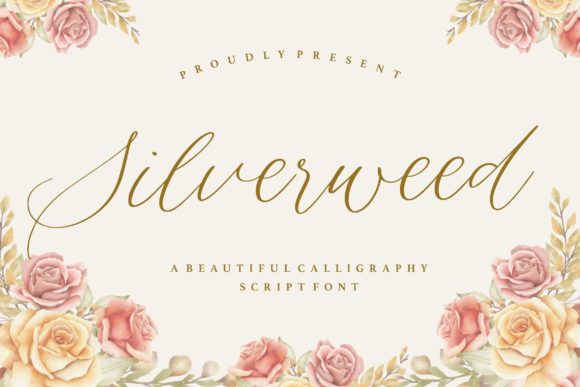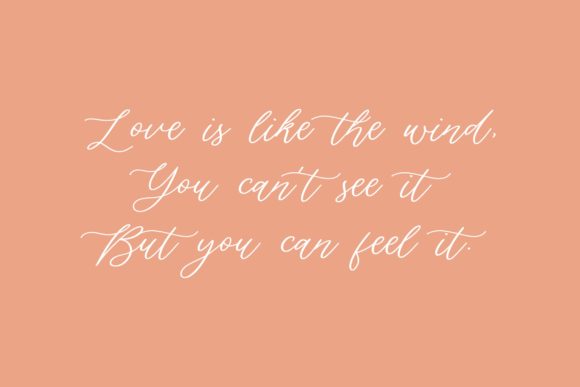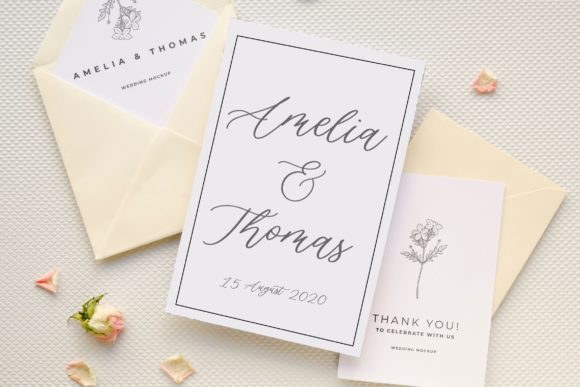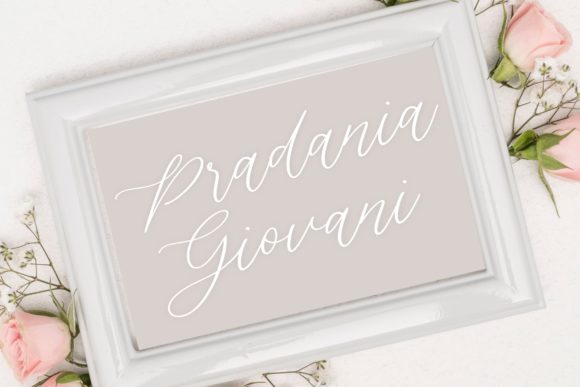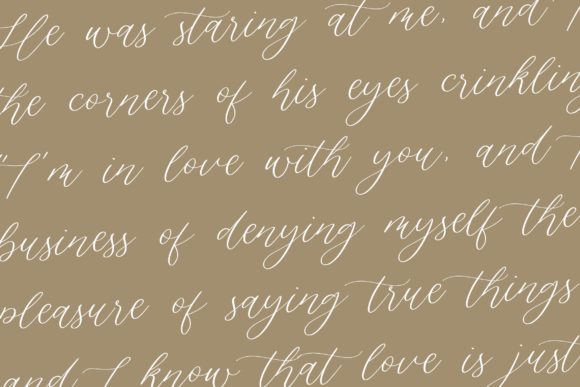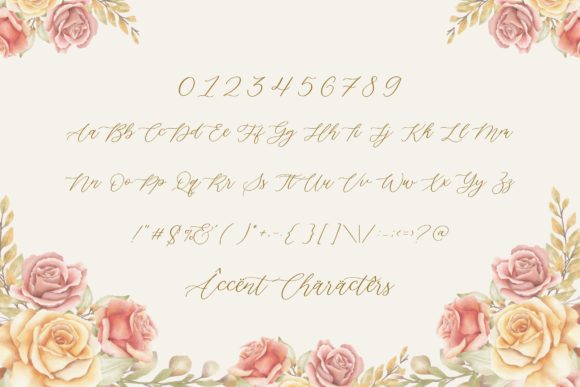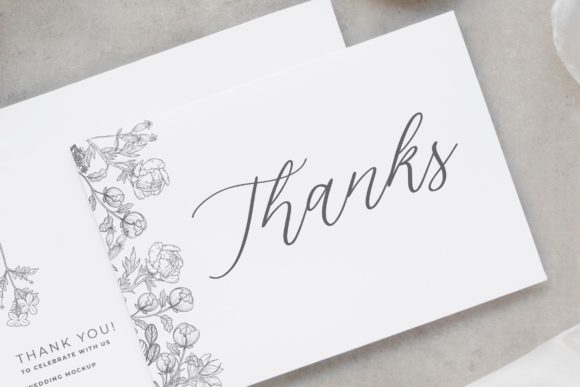
Silverweed Font
About Silverweed Font
Silverweed sounds like a beautiful and versatile handwritten font that can bring a touch of elegance and grace to various design projects. With its delicate and flowing style, it can enhance the beauty of your creations and add a unique charm. Here are some creative ideas on how to use Silverweed font to make your designs come alive:
1. Wedding Invitations: Design romantic and sophisticated wedding invitations with Silverweed font, creating a sense of elegance and enchantment for the special day.
2. Quotes and Lettering Art: Create beautiful quote art and lettering pieces with inspiring messages written in Silverweed font, making them suitable for wall art or social media posts.
3. Logo Design: Use Silverweed font in logo designs for businesses that seek a refined and graceful identity, such as boutique shops, wedding planners, or luxury brands.
4. Book Covers: Incorporate Silverweed font into book covers, especially for genres like romance, poetry, or historical fiction, to evoke a sense of beauty and allure.
5. Stationery: Customize stationery items, such as letterheads, notecards, and envelopes, with Silverweed font to add an elegant and personal touch.
6. Branding Materials: Design branding materials, such as business cards, brochures, and packaging, using Silverweed font to create a cohesive and sophisticated brand image.
7. Social Media Graphics: Create stylish and eye-catching social media graphics using Silverweed font to enhance brand aesthetics and engage followers.
8. Beauty and Fashion Blog Headers: Use Silverweed font in blog headers for beauty and fashion blogs to create a chic and elegant look.
9. Product Labels: Customize product labels with Silverweed font, especially for handmade or artisanal goods, to give them a touch of craftsmanship and elegance.
10. Event Invitations: Design invitations for special events, such as galas, fundraisers, or formal gatherings, using Silverweed font for a sense of refinement and class.
11. Fine Art Prints: Create fine art prints with Silverweed font for galleries or online art shops, showcasing the beauty of calligraphy and hand lettering.
12. Elegant Menus: Design elegant and sophisticated menus for high-end restaurants or cafes using Silverweed font to elevate the dining experience.
13. Luxury Travel Brochures: Use Silverweed font in travel brochures or travel agency materials to evoke a sense of wanderlust and luxury.
14. Personal Logos: Create personal logos or monograms with Silverweed font for a touch of elegance and refinement in your personal branding.
15. Personalized Gifts: Customize personalized gifts, such as journals, photo frames, or wine bottles, with Silverweed font for a thoughtful and elegant touch.
16. Editorial Headings: Use Silverweed font for headings in editorial designs, such as magazine covers or article titles, to add a touch of sophistication and allure.
17. Wedding Stationery Suite: Create a cohesive wedding stationery suite, including save-the-date cards, menu cards, and place cards, using Silverweed font for an elegant and unified look.
18. High-End Culinary Blog Posts: Incorporate Silverweed font in blog post headers or recipe titles in food blogs that focus on gourmet cuisine and exquisite dishes.
19. Exclusive Event Flyers: Design flyers or event invitations for exclusive gatherings or VIP events using Silverweed font to convey a sense of luxury and exclusivity.
20. Artistic Signatures: Use Silverweed font to create personalized and artistic signatures, adding a touch of flair and individuality to your digital or print documents.
In summary, Silverweed is a delicate and elegant handwritten font that can add beauty and sophistication to a wide range of design projects. Whether it’s for wedding invitations, branding, social media graphics, or fine art prints, Silverweed font is sure to make your creative ideas come alive with its timeless charm and grace.